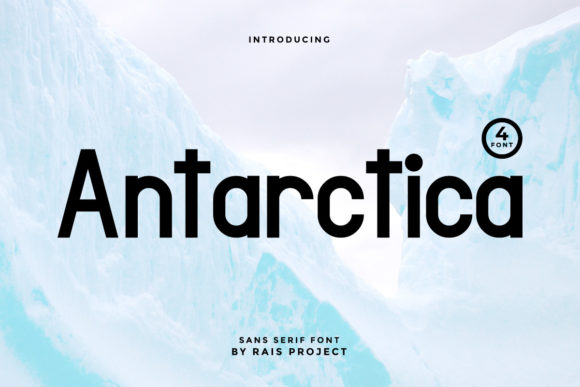
The Ultimate Guide to Antarctica Font: A Modern Sans Serif Marvel
I’ll never forget the design struggle I faced while working on a project for a tech startup. My client wanted a font that was modern, sleek, and conveyed a sense of innovation. I scoured the internet, tried countless fonts, but nothing seemed to fit the bill. That was until I stumbled upon Antarctica Font. ✨
In this article, we’ll dive into the world of Antarctica Font, exploring its features, uses, and what makes it a top choice for designers, crafters, and creative hobbyists.
An Honest Review of Antarctica Font
What I Love About Antarctica Font
• ✅ Unique Style: Antarctica Font boasts a distinctive sans serif style that’s perfect for projects that need a modern edge.
• ✅ Versatility: This font is incredibly versatile, making it suitable for a wide range of industries, including Fintech, Startup, Automotive, Apps, Cosmetic, Beauty, Technology, Game, Magazine, Music, Sport, and more.
• ✅ Legibility: Antarctica Font is clear and easy to read, even at smaller font sizes.
• ✅ OpenType Features: This font comes with a range of OpenType features, including stylistic alternates and glyphs, which can be used to add an extra layer of creativity to your designs.
While Antarctica Font is an excellent choice, there are a few things to keep in mind: 🤔
• ⚠️ Limited Serif Options: As a sans serif font, Antarctica Font may not be the best choice for projects that require a traditional serif look.
• ⚠️ Glyph Limitations: While the font comes with a range of glyphs, there may be some limitations when it comes to more specialized characters.
The Backstory of Antarctica Font
Antarctica Font was designed with the modern designer in mind. The font’s creator wanted to craft a font that was both stylish and versatile, suitable for a wide range of projects. Inspired by the icy landscapes of Antarctica, the font’s unique style is both refreshing and invigorating. ❄️
Q: What is the best use for Antarctica Font?
A: Antarctica Font is perfect for projects that require a modern and sleek sans serif font, such as tech startups, magazines, music, and sport projects.
Q: Is Antarctica Font suitable for body text?
A: While Antarctica Font is clear and legible, it may not be the best choice for extended body text. It’s better suited for headlines, titles, and short paragraphs.